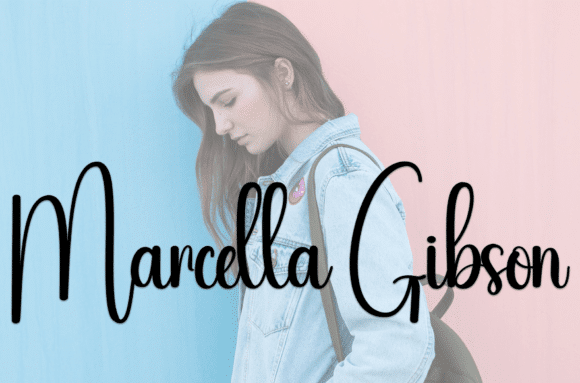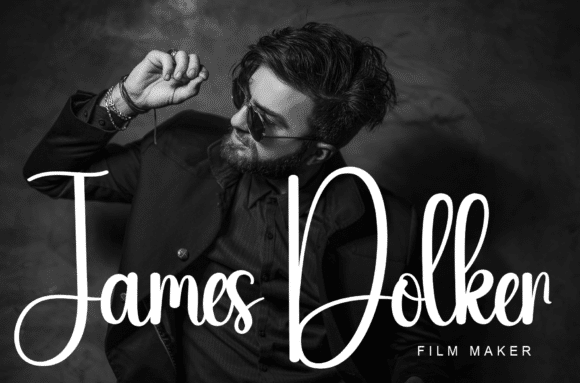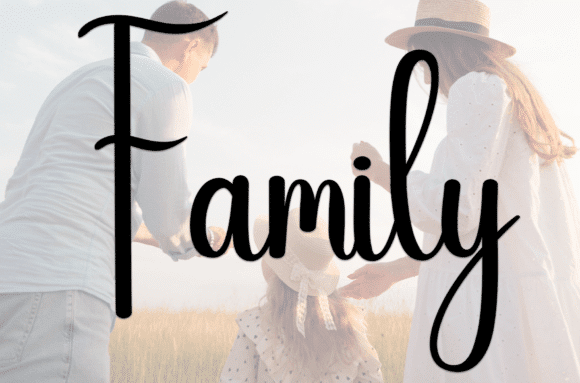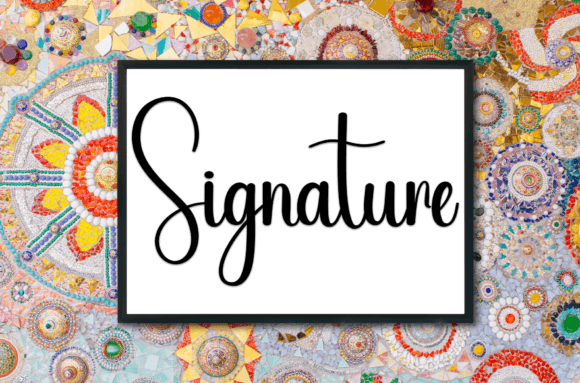
Monday Font
Monday is a sweet and friendly handwritten font. Fun and relaxed, this font is ideal for writing wedding invitations, cards, or any other design that might need a lovely touch!